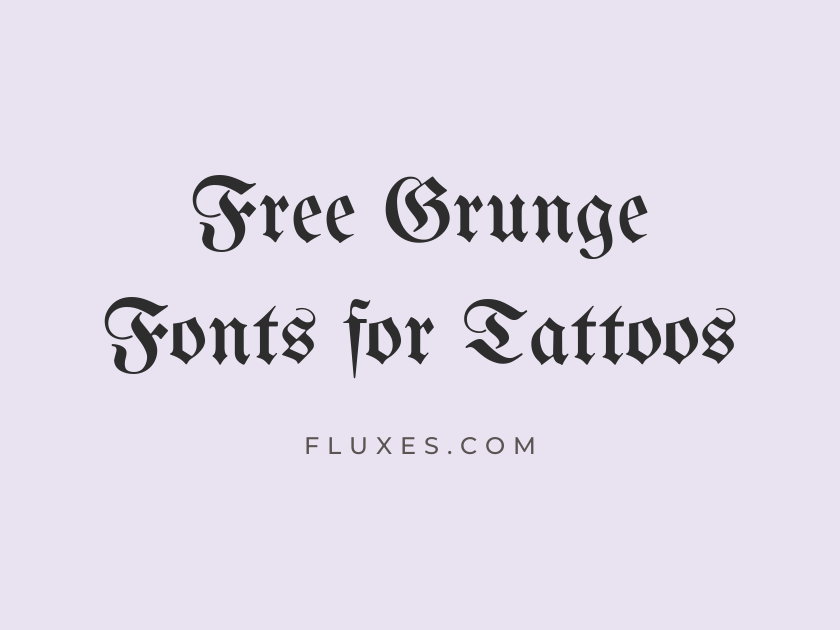
60 Best Free Grunge Fonts for Tattoos
Grunge fonts sit at the heart of tattoo culture because ink itself is never perfectly clean. Skin stretches, lines fade, and the best tattoo lettering has always borrowed from worn signage, scratched flash sheets, and hand-lettered rebellion rather than sterile digital polish. Whether you are designing flash art, a studio logo, apparel drops, or a font for a client’s memorial script, free grunge fonts from Google Fonts give you distressed textures, gothic blackletter, and brush-script attitude without licensing headaches.
The styles below cover the full range a tattoo artist or designer actually needs: heavy blackletter for chest pieces, dripping horror type for old-school flash, splattered and burned textures for street-style graphics, and looping calligraphic scripts for names and dates. Each one is free to download and use commercially through Google Fonts.
1. UnifrakturMaguntia
Ink and iron, forever etched skin
This is the blackletter that most people picture the moment someone says “gothic tattoo font.” Its broken, angular strokes echo old German manuscripts and metal band logos alike, which is exactly why it has become a staple for chest pieces, knuckle tattoos, and forearm scripts.
It reads best at larger sizes; the intricate hairlines can clog together in small print or thin outline work, so save it for bold statement lettering rather than fine print.
2. UnifrakturCook
Bold gothic lines for old-world ink
UnifrakturCook
Heavier and more compressed than its cousin UnifrakturMaguntia, this face brings extra weight and density that holds up well when traced onto skin. It suits sleeve lettering and banner text where you want gothic drama without losing legibility.
3. Pirata One
Dark carnival letters for haunted tattoos
Pirata One leans theatrical, mixing blackletter bones with a slightly rounded, storybook menace that suits haunted-house flash, carnival themes, and horror-adjacent sleeve work.
4. Grenze Gotisch
Sharp blackletter strokes for gothic sleeves
Grenze Gotisch
A cleaner, more geometric take on blackletter, Grenze Gotisch trades some of the medieval texture for sharper, more consistent strokes. It works nicely for studio branding that wants a gothic edge without tipping into full horror territory.
5. Uncial Antiqua
Ancient script for monastic-style tattoo work
Uncial Antiqua
Rounded, low-contrast, and rooted in early medieval manuscript lettering, Uncial Antiqua brings a monastic, illuminated-text feel that pairs beautifully with Celtic knotwork and religious tattoo motifs.
6. Fondamento
Handwritten elegance for memorial tattoo scripts
Fondamento
Fondamento has the loose, ink-and-quill character of an old handwritten letter, making it a warm option for memorial dates or short phrases where you want humanity over precision.
7. Nosifer
Dripping horror letters for haunted flash
Nosifer
Built for dread, Nosifer drips like fresh blood off every letterform. It is unapologetically horror, best reserved for headline words on flash sheets rather than body copy, where the effect would turn illegible fast.
8. Eater
Cracked bone lettering for horror tattoos
Eater
Chewed edges and jagged serifs give Eater a decayed, skeletal look that suits zombie, horror-movie, and creature-feature tattoo themes. It is loud by design, so use it sparingly for maximum impact.
9. Butcherman
Melting blood drips for shock-value ink
Butcherman is the font equivalent of a slasher-film poster, dripping and gnarled in a way that instantly signals horror flash art or gore-themed apparel graphics.
10. Creepster
Campy horror type for old flash sheets
Creepster has become something of a default for spooky season graphics, but its drooping, campy horror shapes genuinely earn a place in traditional tattoo flash, especially for pumpkin, skull, and haunted-house designs.
It carries a slightly playful, B-movie tone rather than pure dread, which makes it friendly for shop signage and merchandise as much as skin.
11. Ewert
Wobbly vintage circus type for sideshow ink
Ewert
With its uneven baseline and hand-cut feel, Ewert channels vintage circus posters and sideshow banners, a natural fit for old-carnival and freak-show tattoo themes.
12. Vampiro One
Gothic curves for vampire tattoo lettering
Vampiro One
Vampiro One rounds off its gothic edges just enough to stay readable while still evoking classic horror-movie title cards, making it a solid choice for vampire and occult tattoo lettering.
13. Jim Nightshade
Spooky hand lettering for haunted house flash
Jim Nightshade
This handwritten, slightly crooked face reads like a warning scrawled on a haunted attraction sign. It brings personality to short phrases and works well layered over grunge textures in flash art compositions.
14. Rubik Wet Paint
Dripping paint letters for raw street ink
When mixing scripts and distressed display faces in one design, limit yourself to two font families at most. Tattoo flash reads cleanest when the eye is not asked to parse three competing textures at once.
From dripping horror lettering to elegant memorial scripts, this range covers nearly every grunge tattoo style a working artist or designer might need, all without spending a cent on licensing.